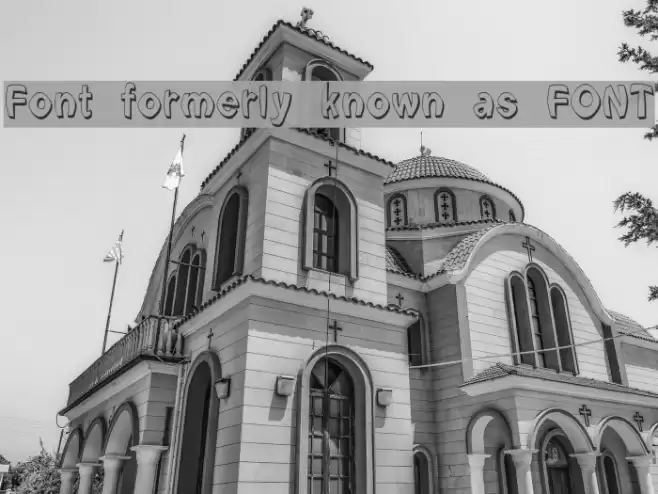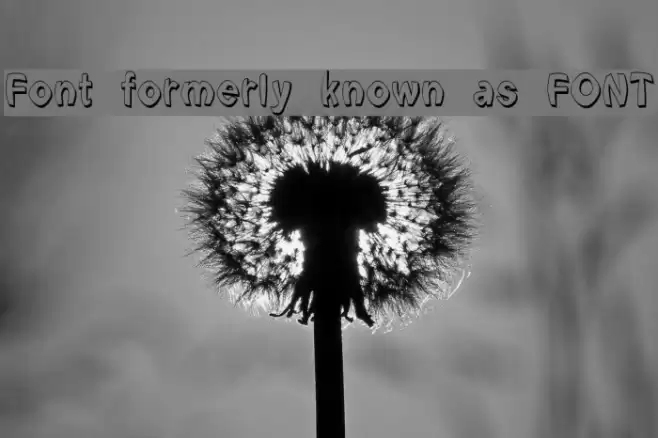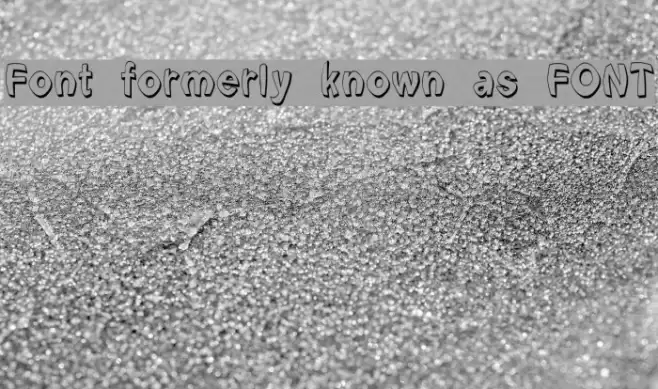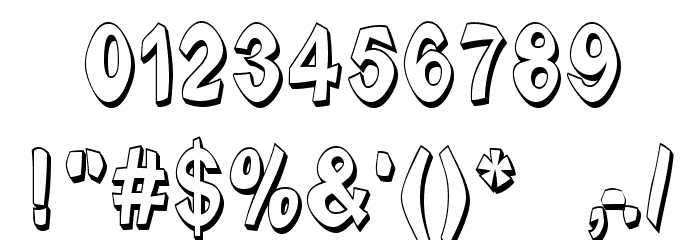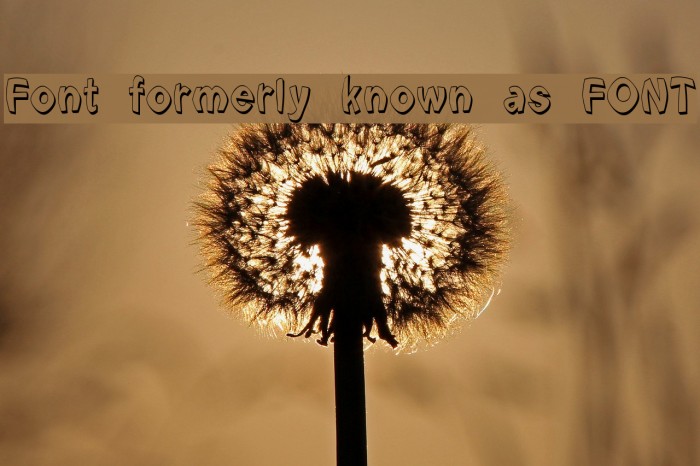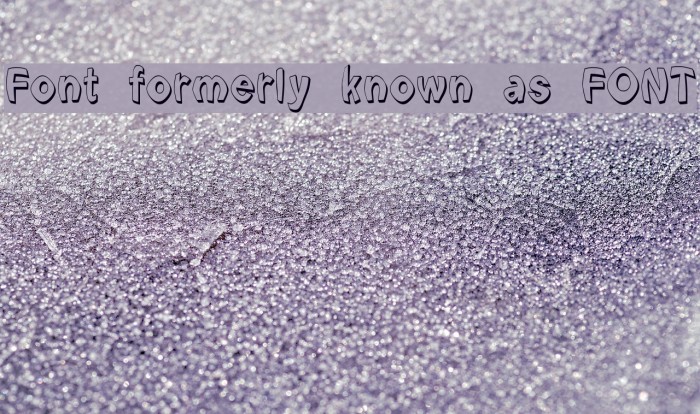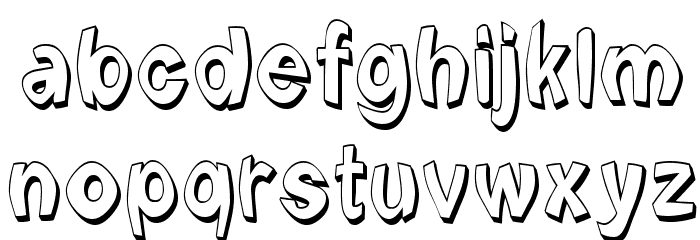
Font formerly known as FONT Font
Font formerly known as FONT Description
This font features a bold, playful design with a three-dimensional effect that gives each character a sense of depth. The letters are outlined with a thick black line, creating a shadow-like appearance that enhances the 3D illusion. The overall style is informal and fun, making it suitable for creative and lighthearted projects. The uppercase and lowercase letters maintain consistent proportions, while the numbers and special characters follow the same design principles, ensuring a cohesive look across all text elements.
A bold, playful 3D font with a shadow effect, perfect for creative projects from 3D fonts.
- Proposed Projects: Ideal for children's book covers, playful posters, comic strips, and any design requiring a fun, eye-catching typeface.
- Overall Style: Playful, Decorative
- Use Case: Headlines, Posters, Logos